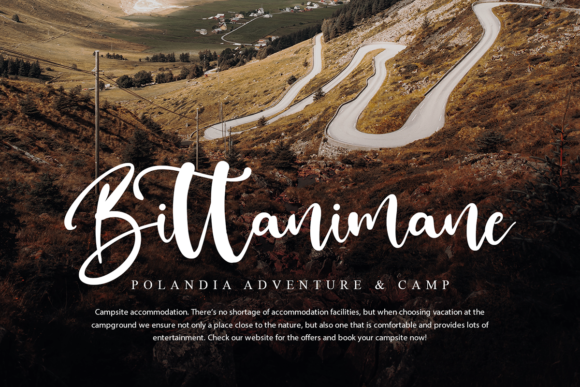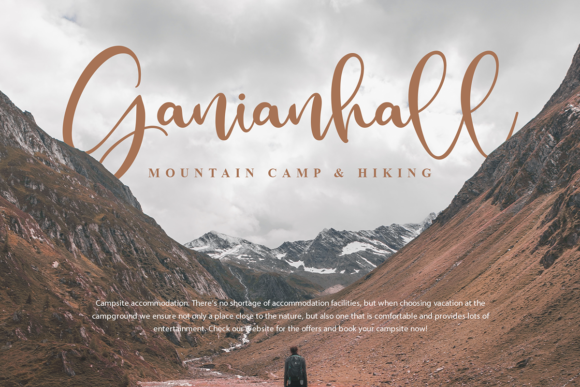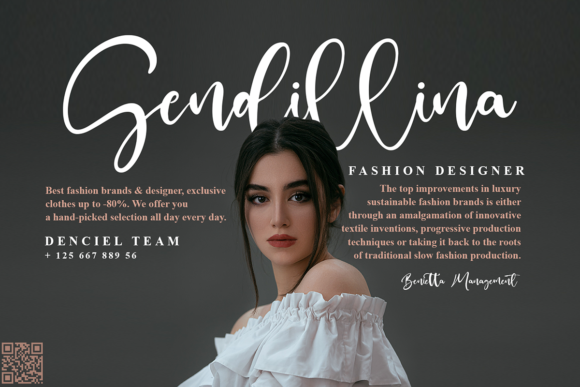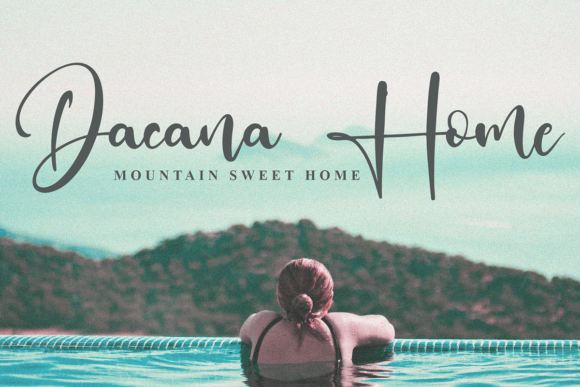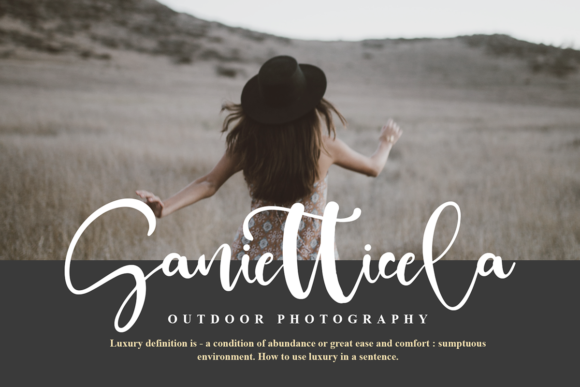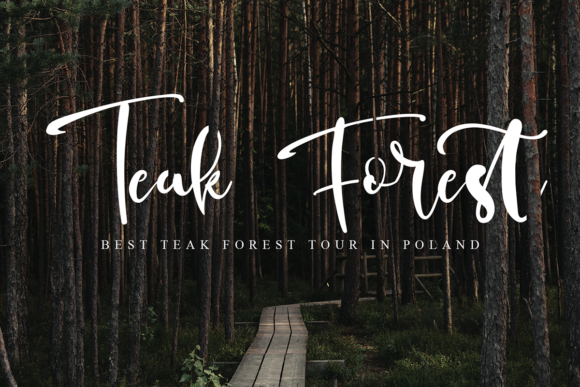
Introduction to Panny Castie Font
Panny Castie is a luxurious script font.
A collection of letters and numbers suitable for your projects, and also great for logotype, branding design, logo design, digital lettering arts, t-shirt/apparel, poster, magazine, signs, advertising design, and more .
Key Features of Panny Castie Font
Why Choose Panny Castie Font?
Panny Castie Font offers exceptional quality and versatility, making it a valuable addition to your design toolkit. Whether you’re creating for personal projects or commercial use, Panny Castie Font delivers professional results.